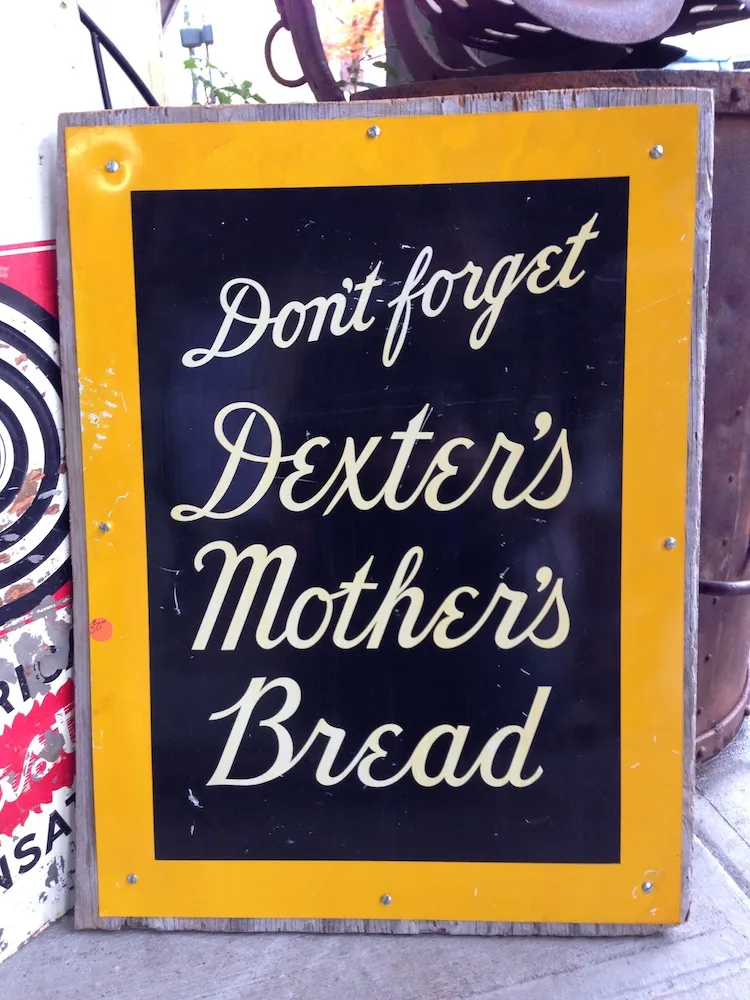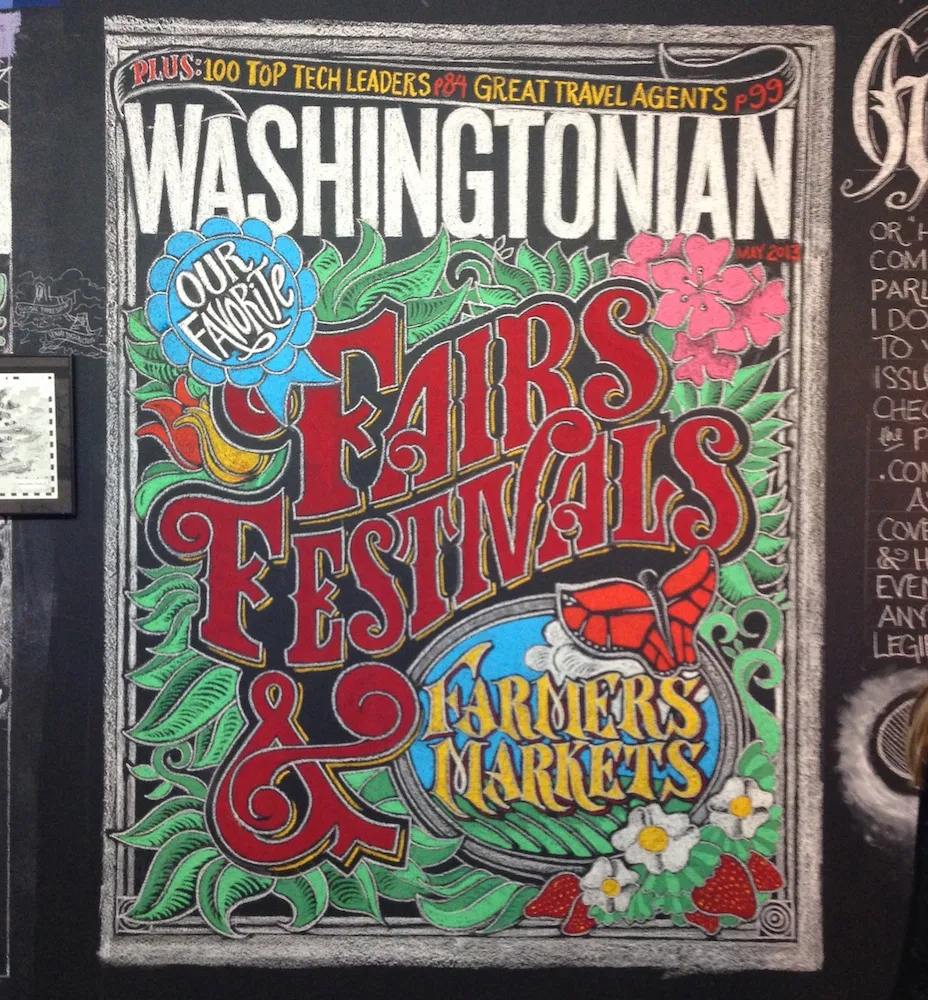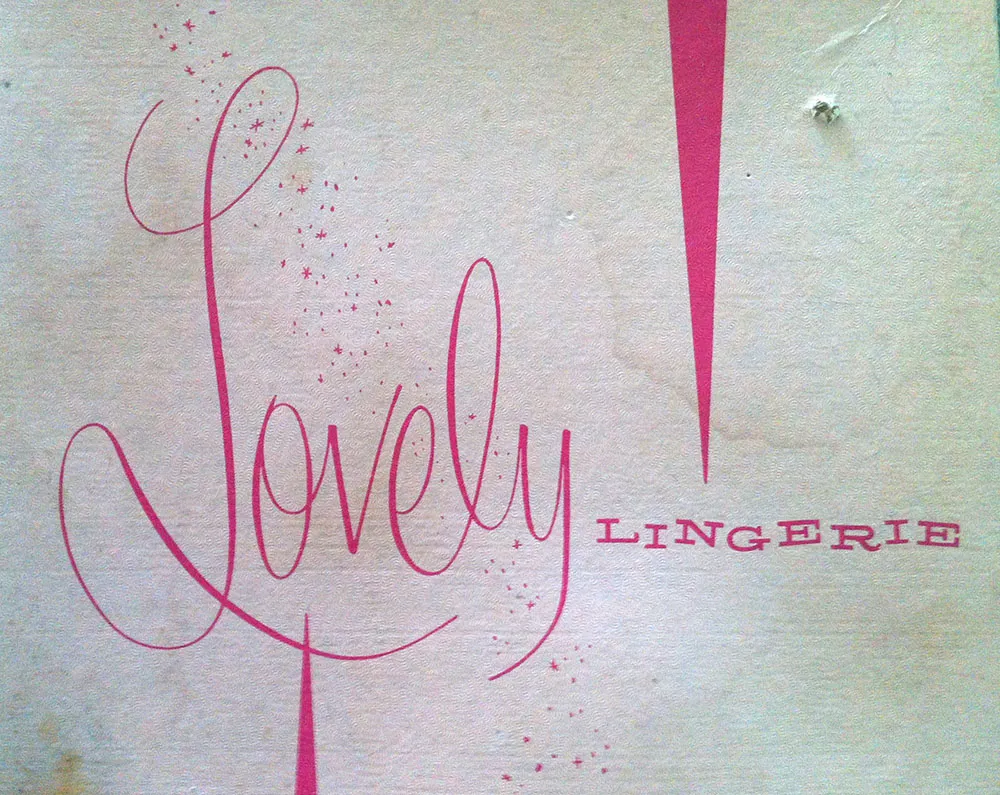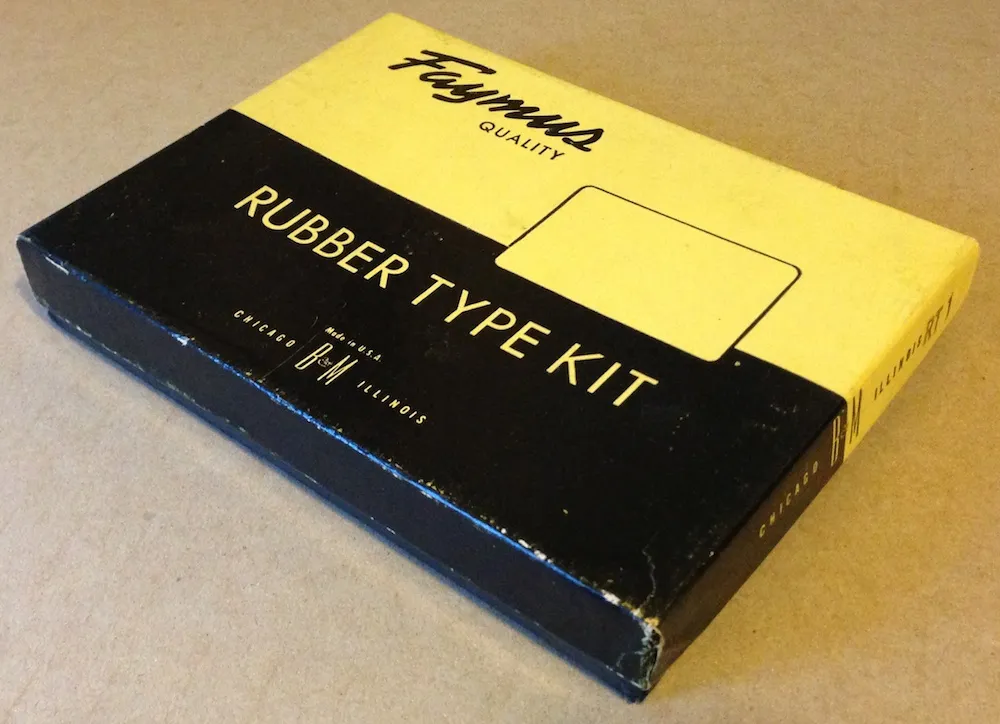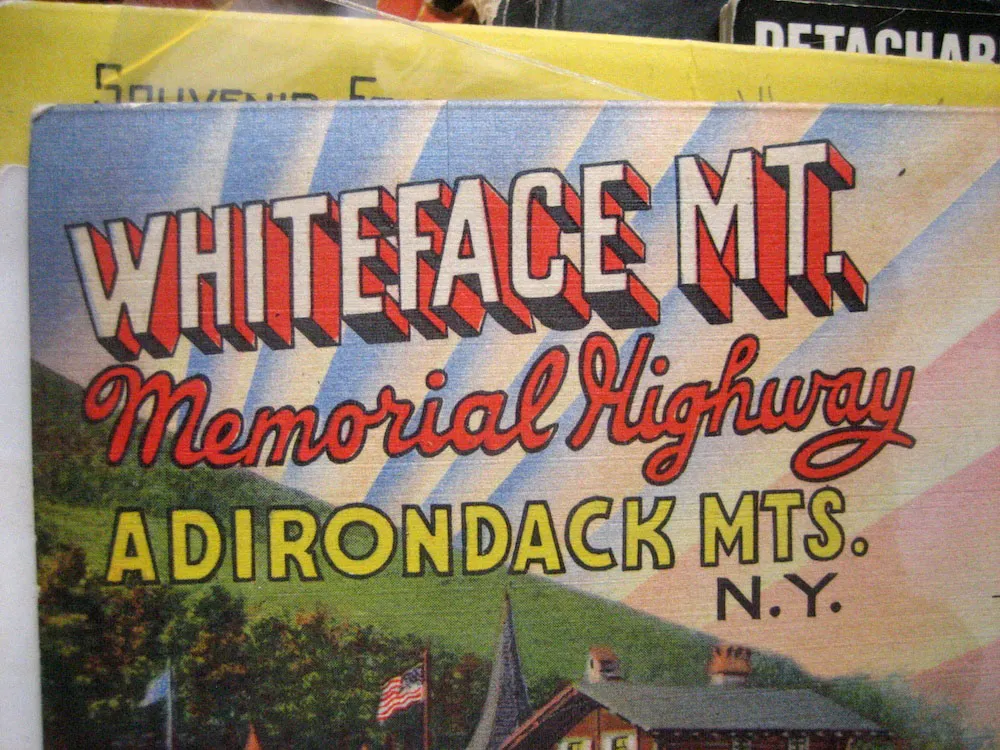
I ran across this today in my studio while searching for something else. Given today’s big Typekit announcement (with which I’m participating), I thought it would be fun to post a photo of it. With this Type Kit, you only got one font.
This last Saturday night, I stopped by the annual Saint Paul Art Crawl. It takes place in the Lowertown area of downtown Saint Paul, where former warehouses have been turned into artists’ lofts, starting back in the 1980s. I don’t go to The Crawl every year, but I’m glad I did this year.
One of the artists who had work on display was a guy named Jeff Nelson. Lately, Jeff has been doing wall-sized chalk murals of lettering and illustration at area restaurants. I first noticed one a month or so ago at The Cheeky Monkey in Saint Paul. I didn’t notice who did it at the time, but I knew as soon as I stepped into Jeff’s studio Saturday night. Nice work, Jeff!
Seen in an antique store (a former dress factory) in Oneonta, New York, July 7, 2007.
Saw this sculpture by an artist named “Peyton” at the Franconia Sculpture Park, Franconia, Minnesota, back in August 2011.
I love this old lettering, c. 1954. Seen in the Amana Heritage Museum, Amana Colonies, Iowa, March 19, 2012.